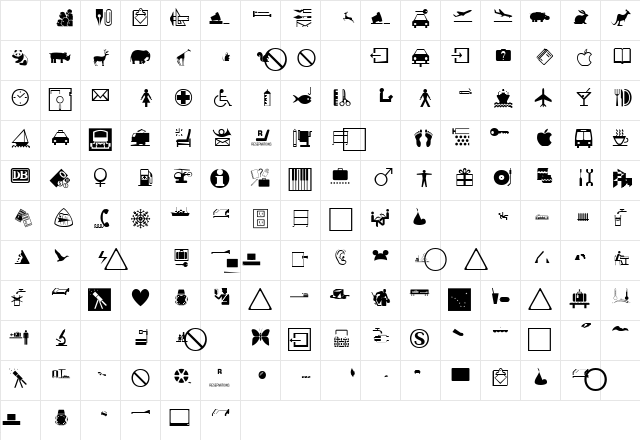
DoodleDingbatsSevenSSK Regular
Design Context for DoodleDingbatsSevenSSK
DoodleDingbatsSevenSSK is a composed and adaptable typeface that performs quietly and consistently across a wide range of design contexts.
Pro Tip: Use DoodleDingbatsSevenSSK in both headline and body roles to test its range before committing to a single application.